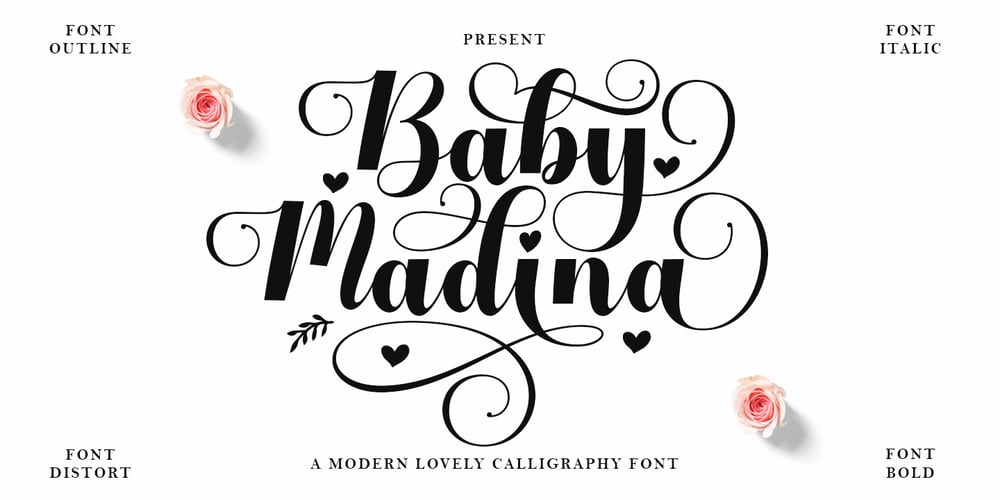
Baby Madina Font Family was designed by Ikhsan Maulana and published by IM Studio. Baby Madina contains 5 styles and family package options. Baby madina is an elegant calligraphy font that comes with a very beautiful character change, a kind of classic decorative script with a modern touch, designed with high details to present an elegant style, which has 5 types of fonts.Baby madina is attractive because the typeface is pleasing to the eye, clean, feminine, sensual, glamorous, simple and very easy to read, thanks to its many luxurious letter relationships. I also offer a decent number of stylistic alternatives for some of the letters. Classic style is very suitable to be applied in various formal forms such as invitations, labels, restaurant menus, logos, fashion, make up, stationery, novels, magazines, books, greeting/wedding cards, packaging, labels or all kinds of advertising purposes and many others. ..Thanks & Happy Designing!